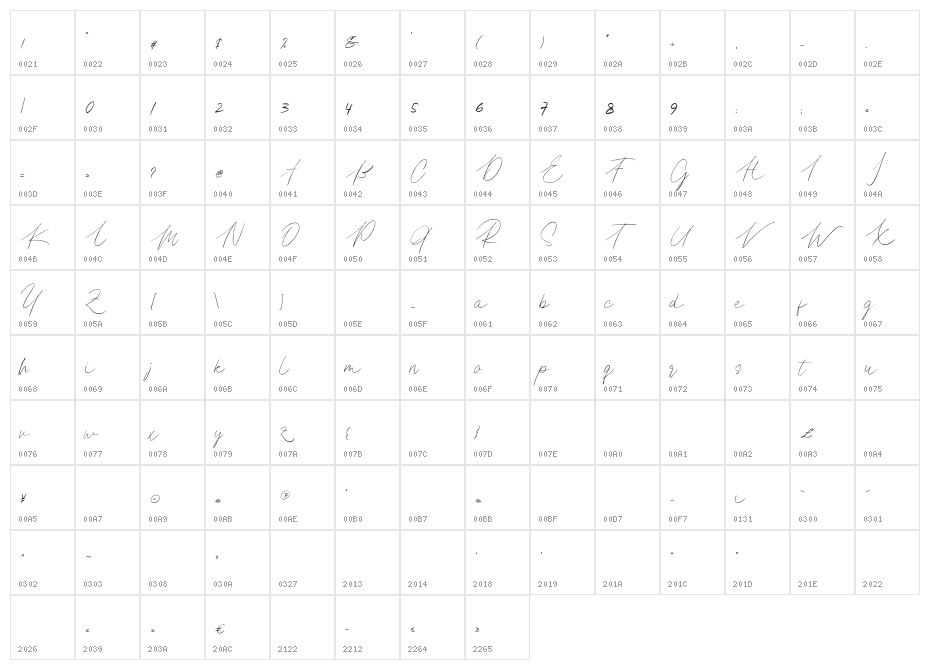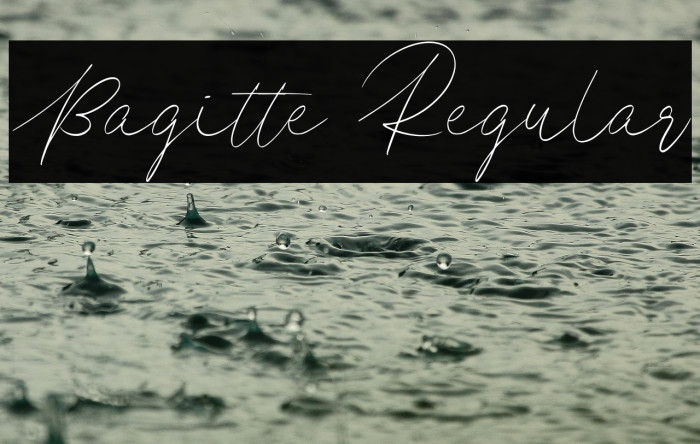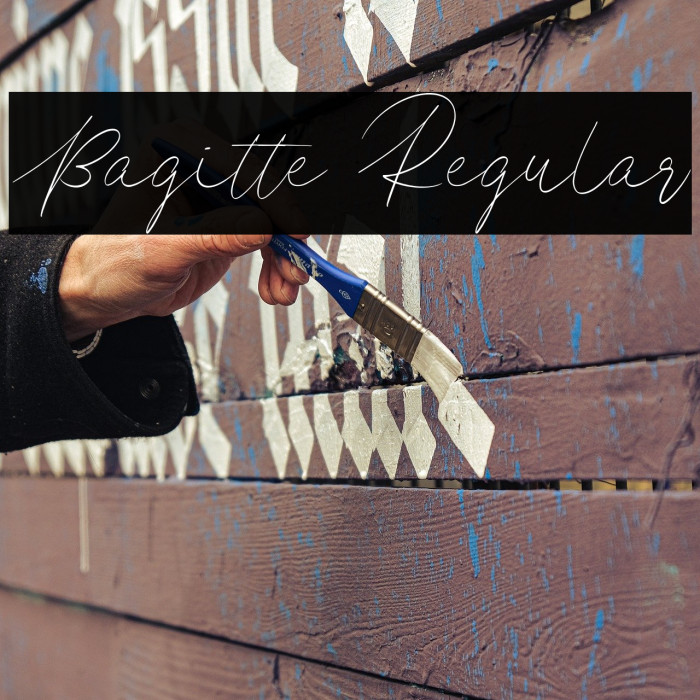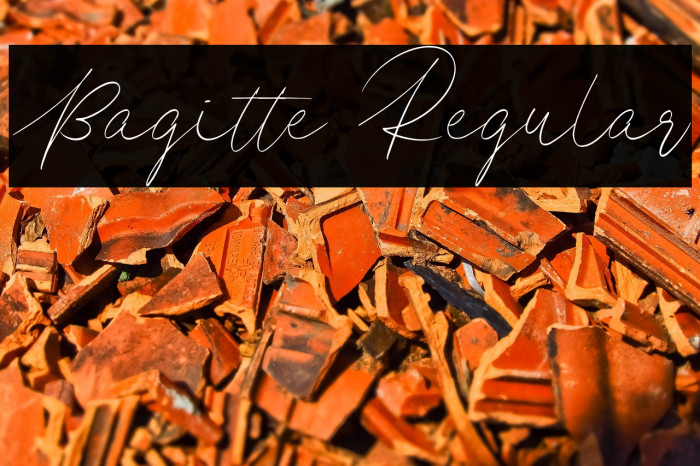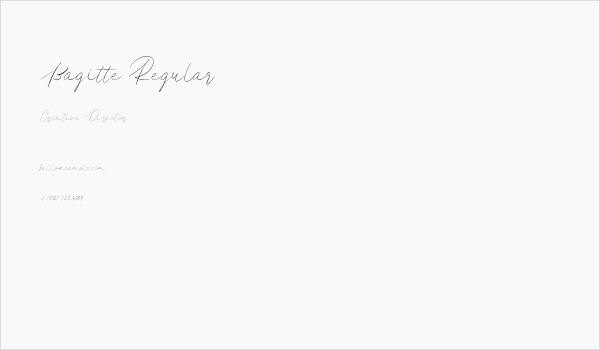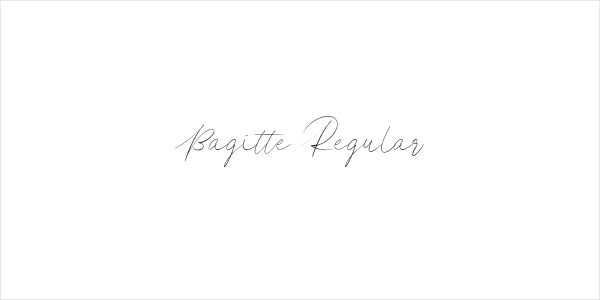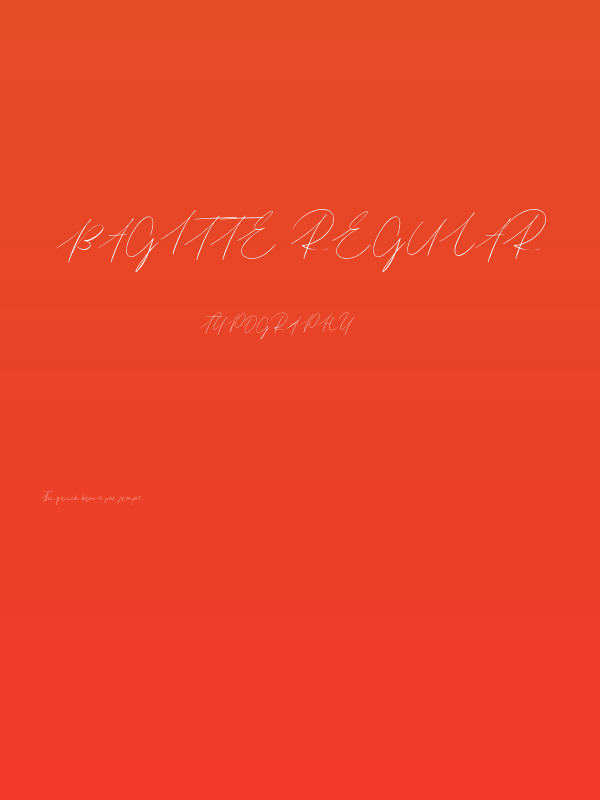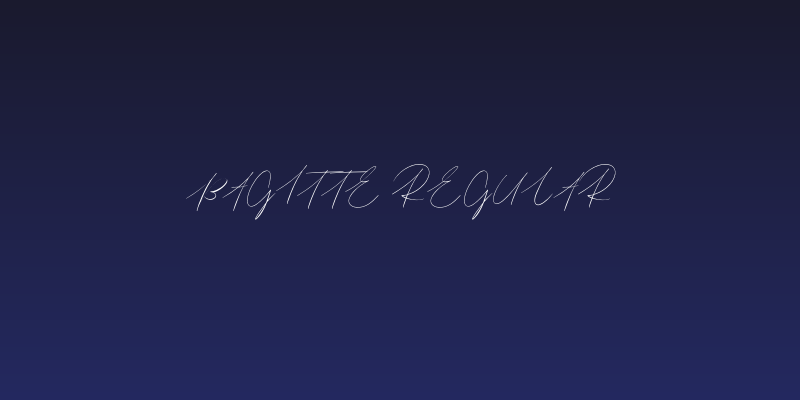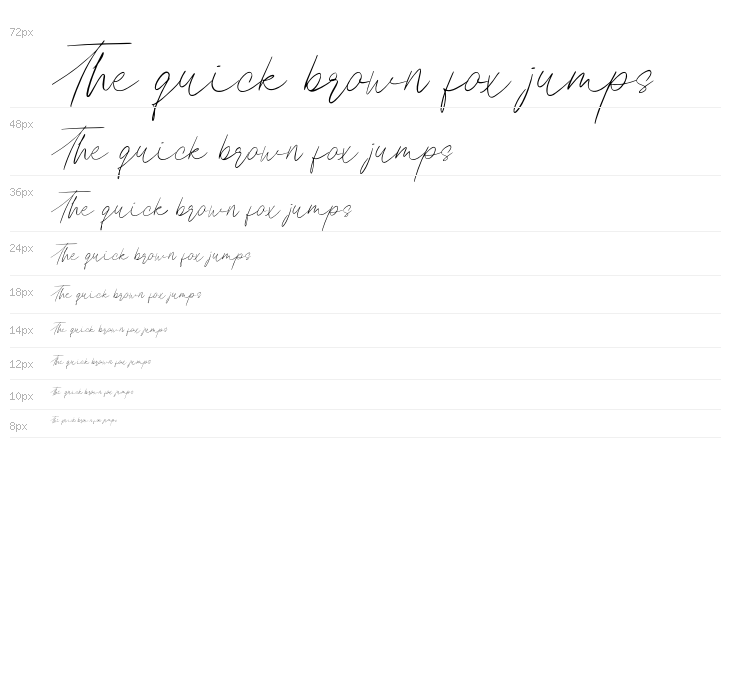
Bagitte Regular Font
Bagitte Regular Description
A delicate and flowing script font with a handwritten style, featuring thin strokes and elegant curves.
| Use Case | Logos, Invitations |
| Proposed Projects | Wedding invitations, personal branding, greeting cards. |